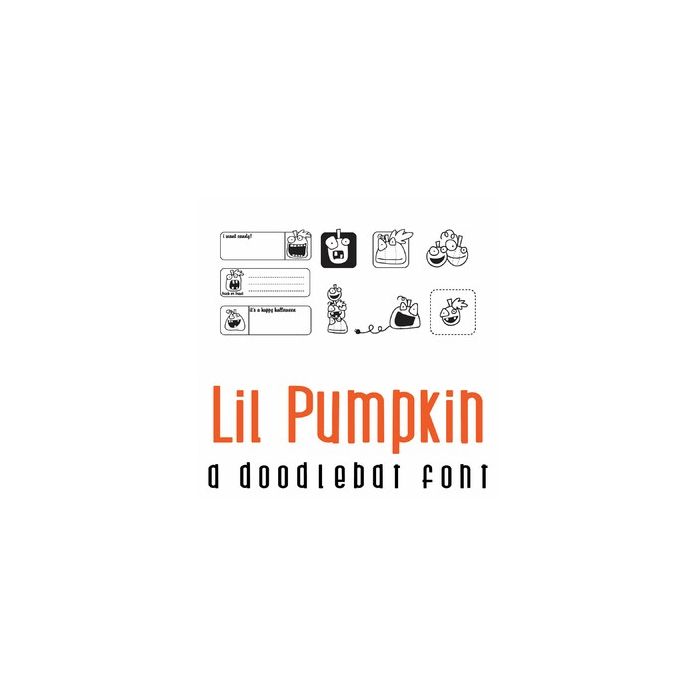
This fun doodlebat font features 36 adorable pumpkins and jack-o-lanterns, labels and imagery. A-Z and 0-9. Perfect for cards, gifts, decor, crafts, scrap book pages, planner stickers and more!